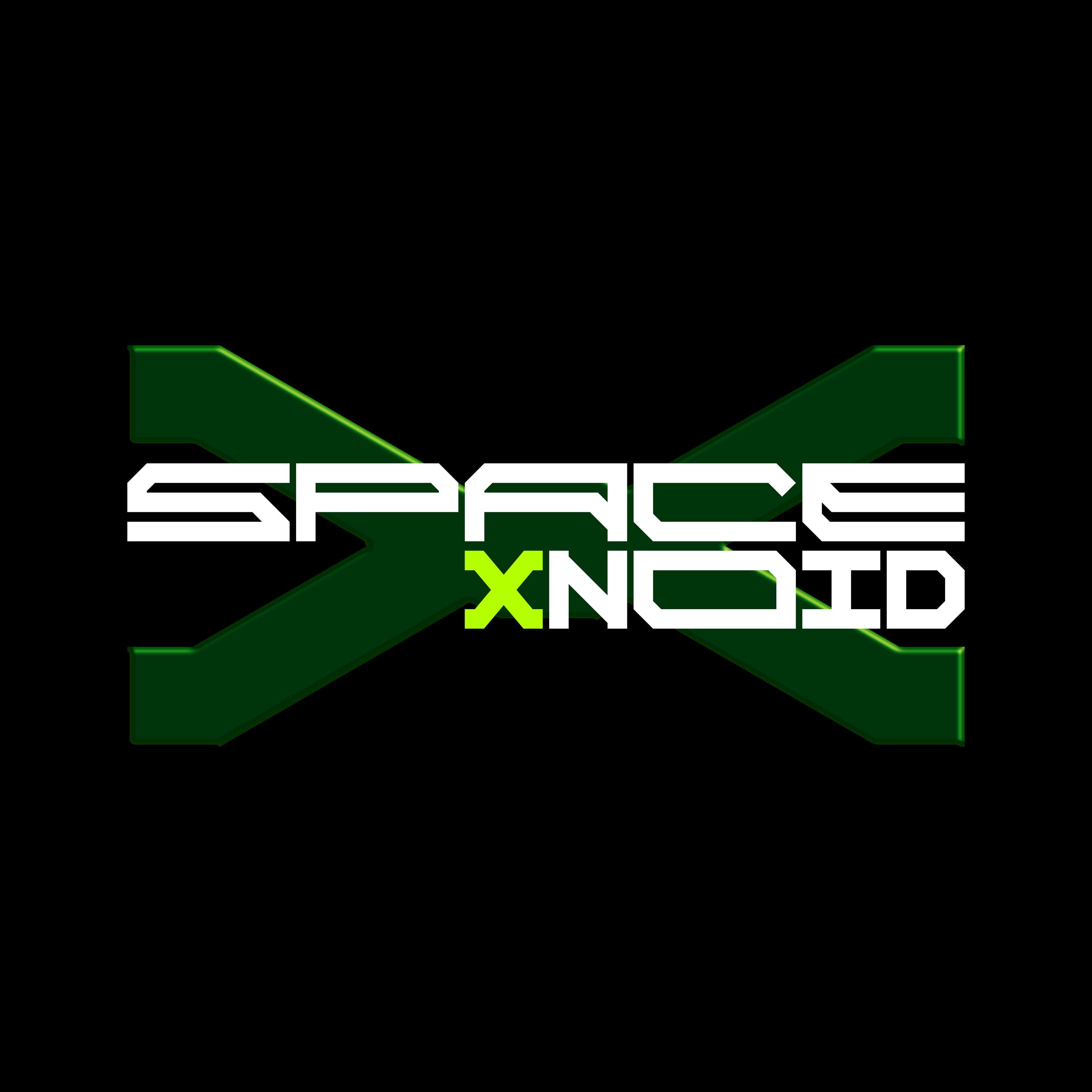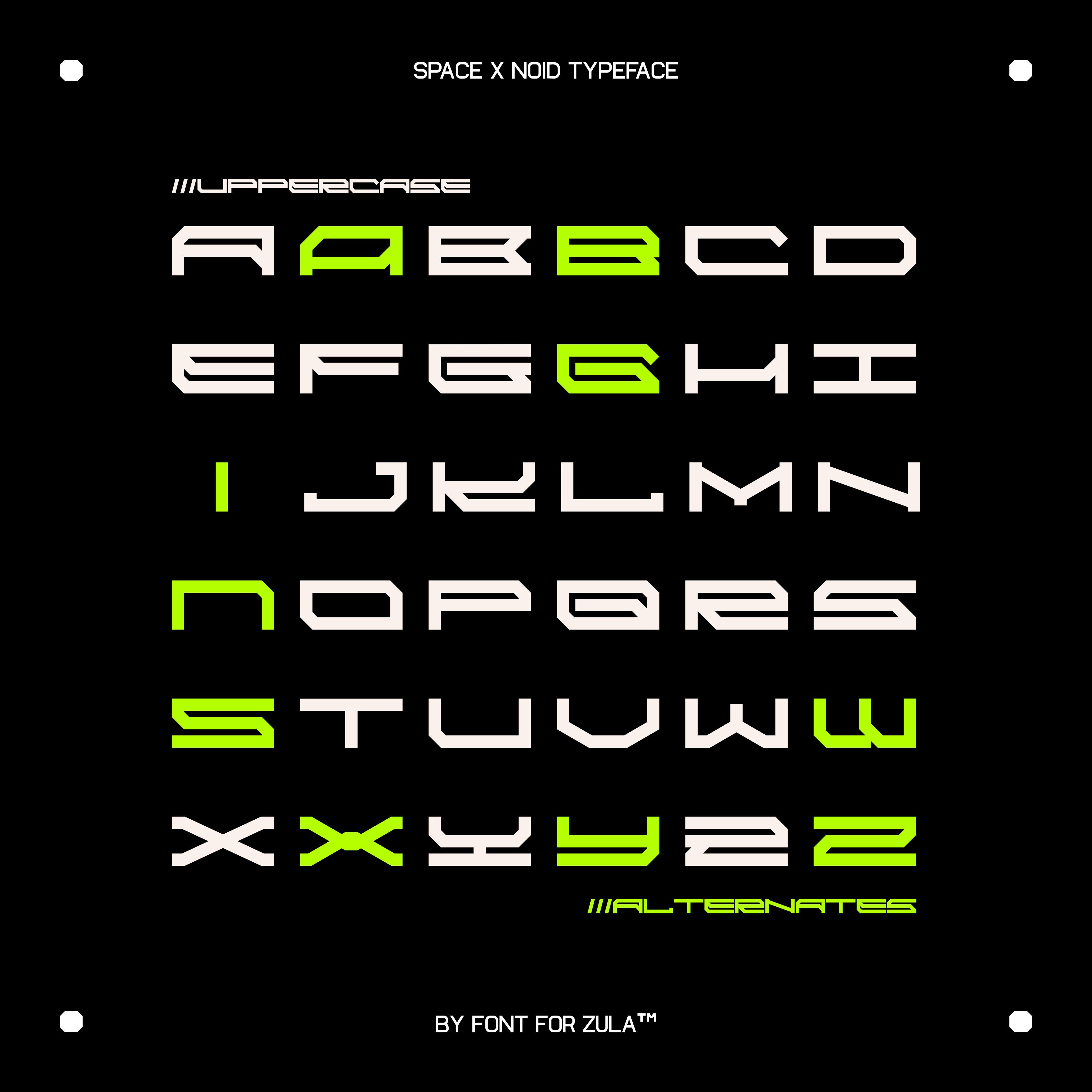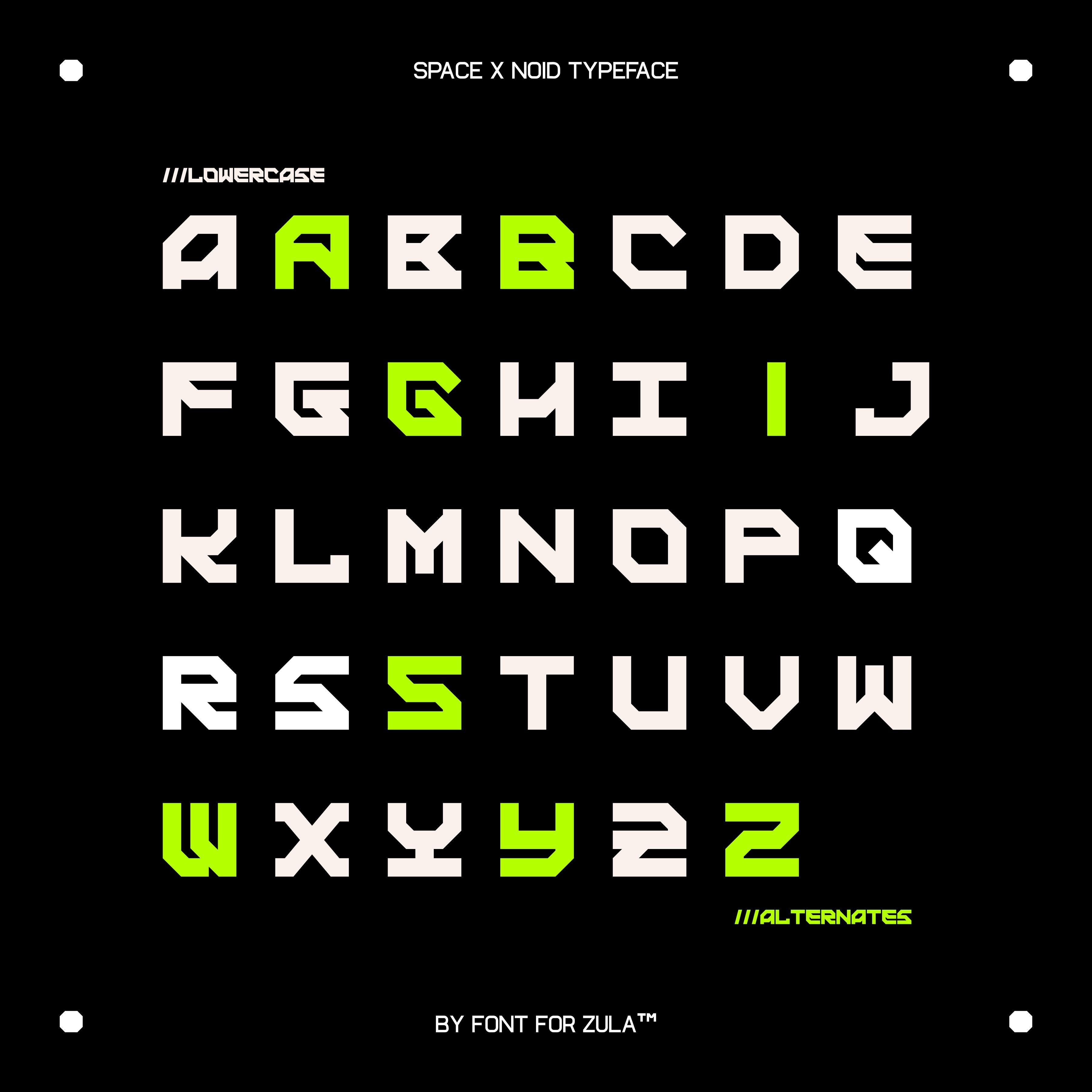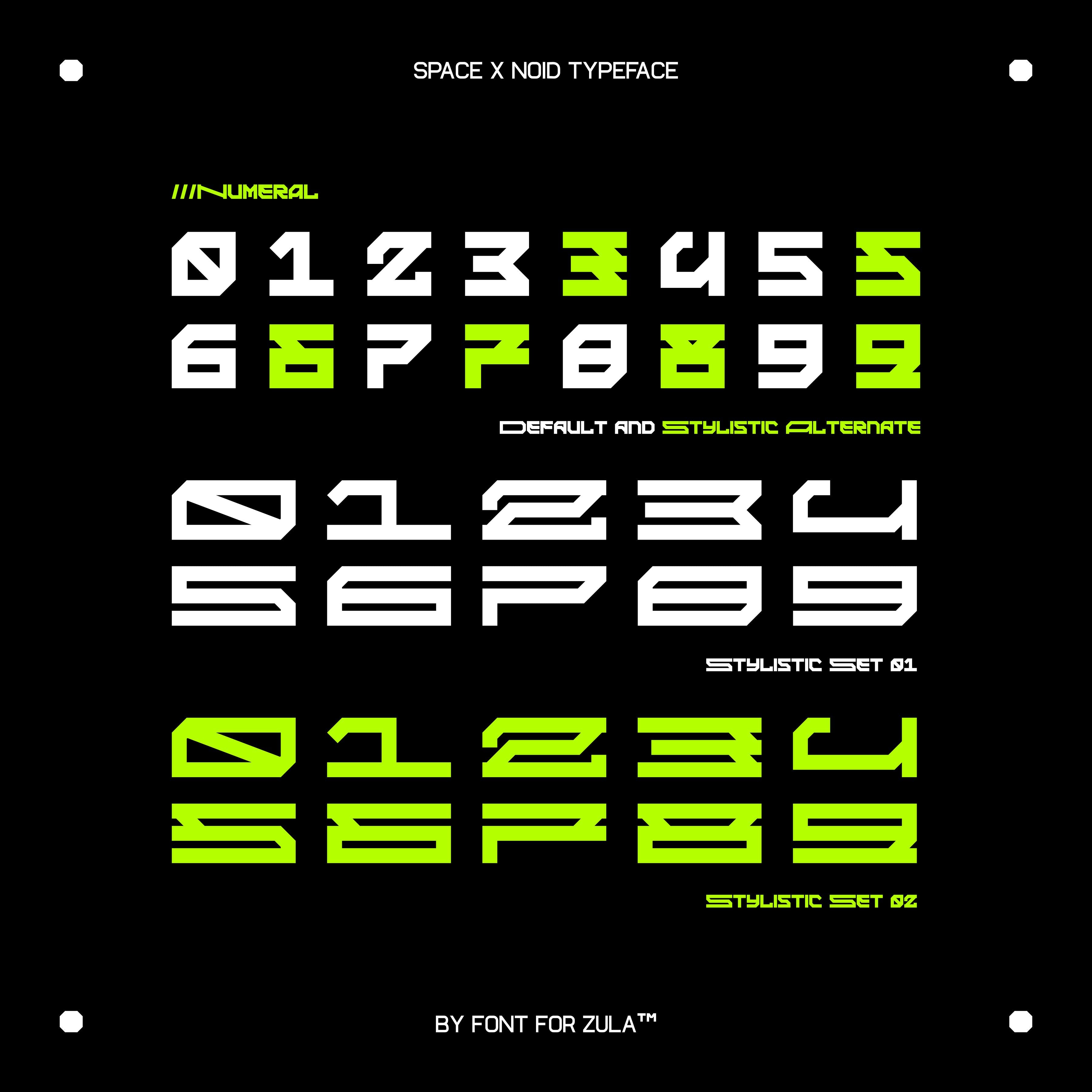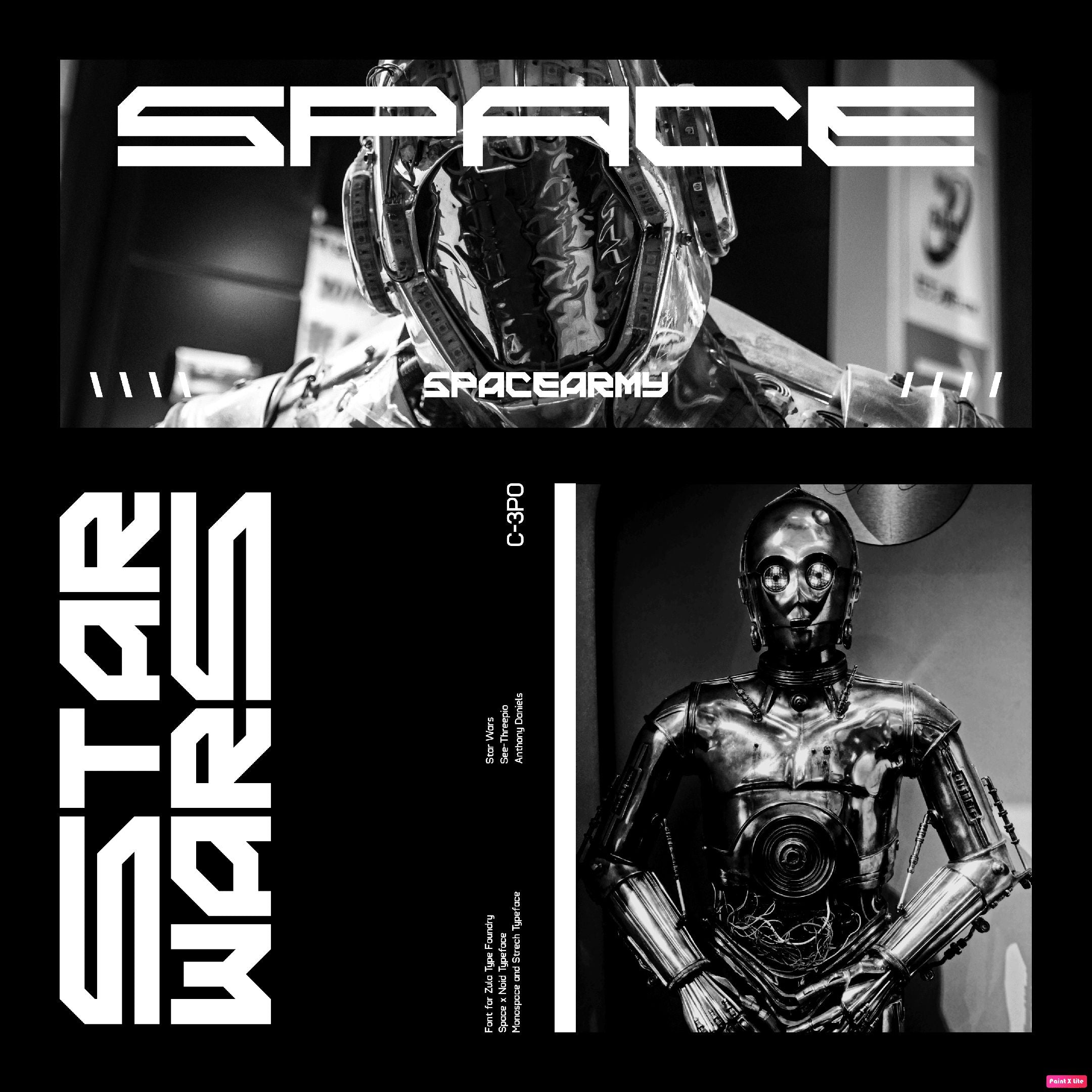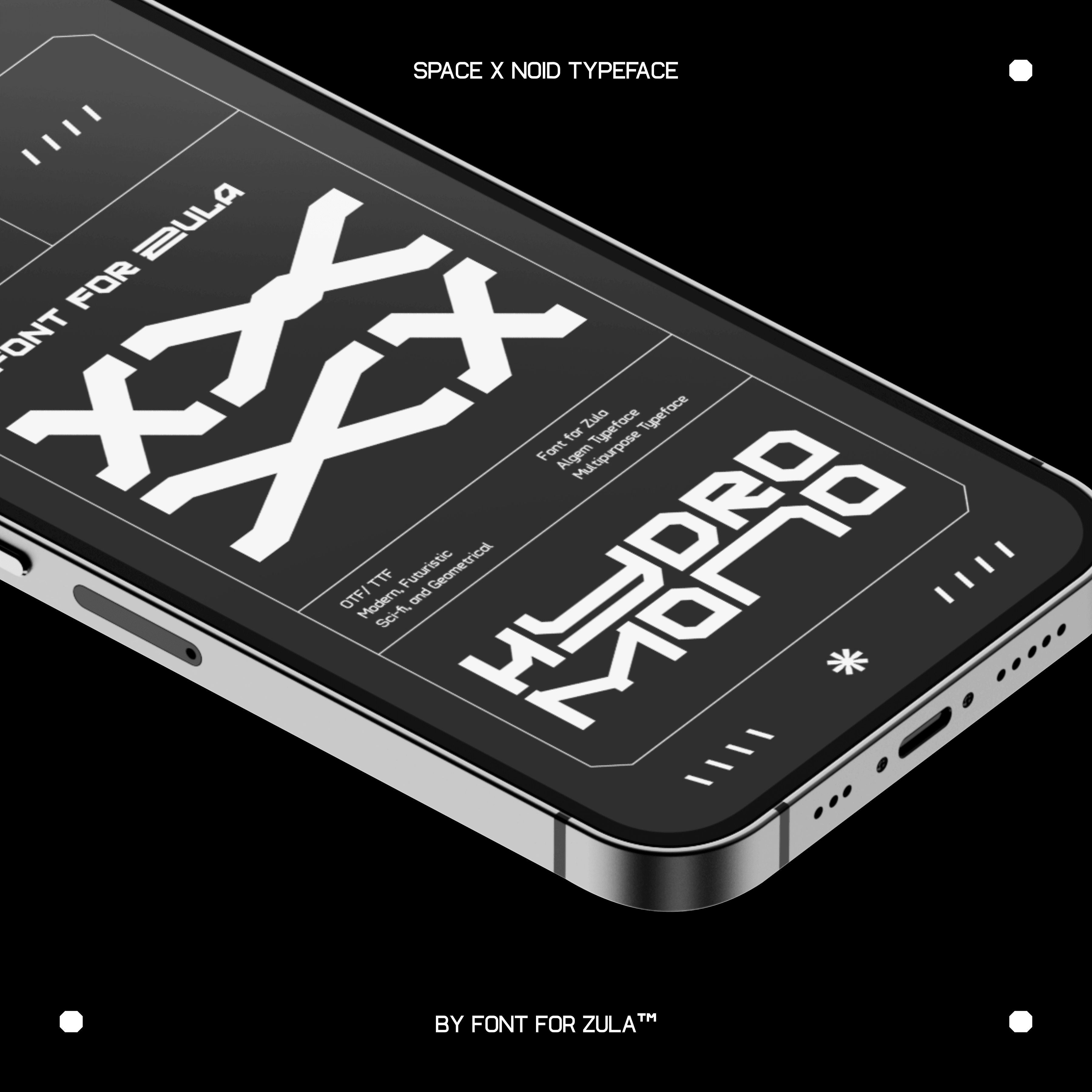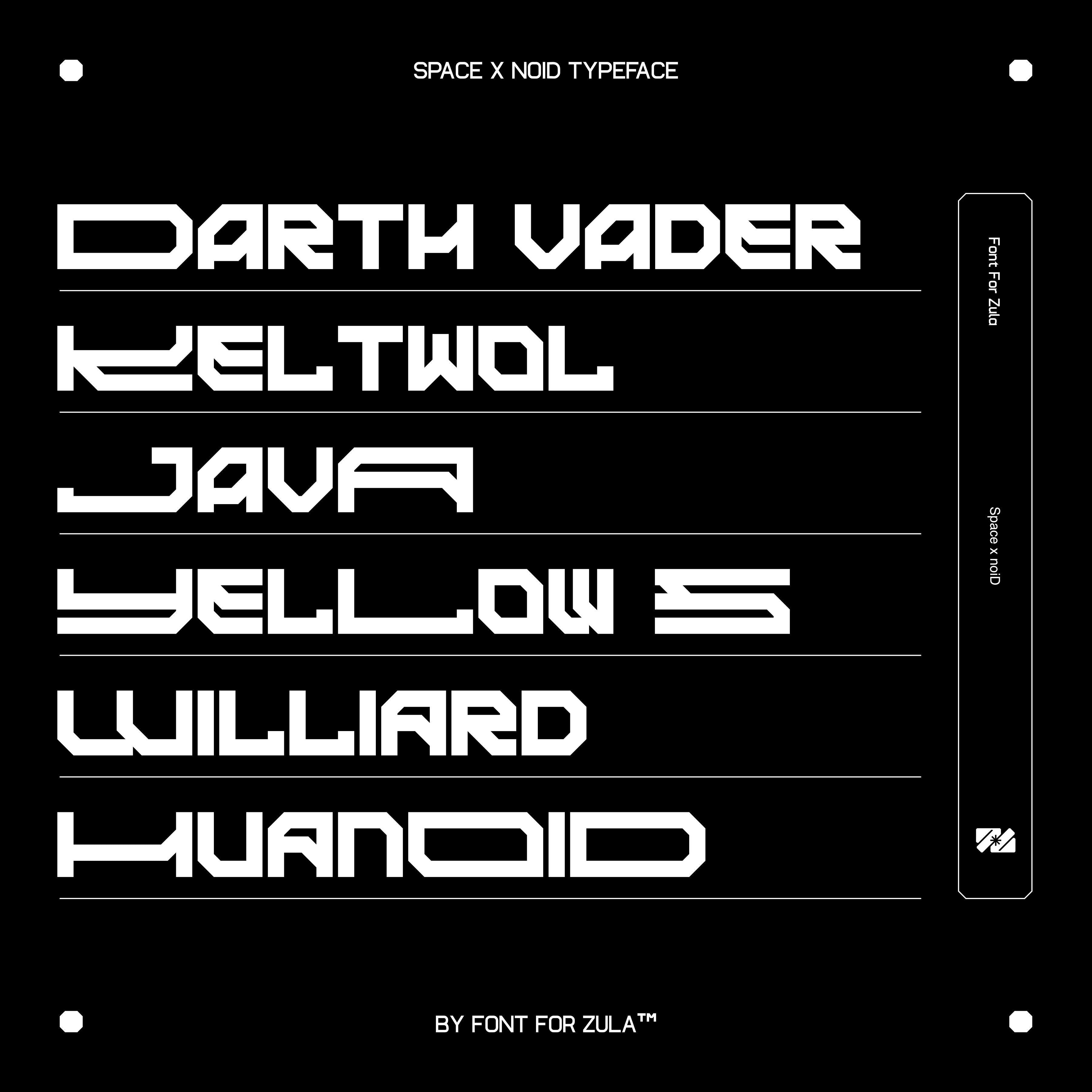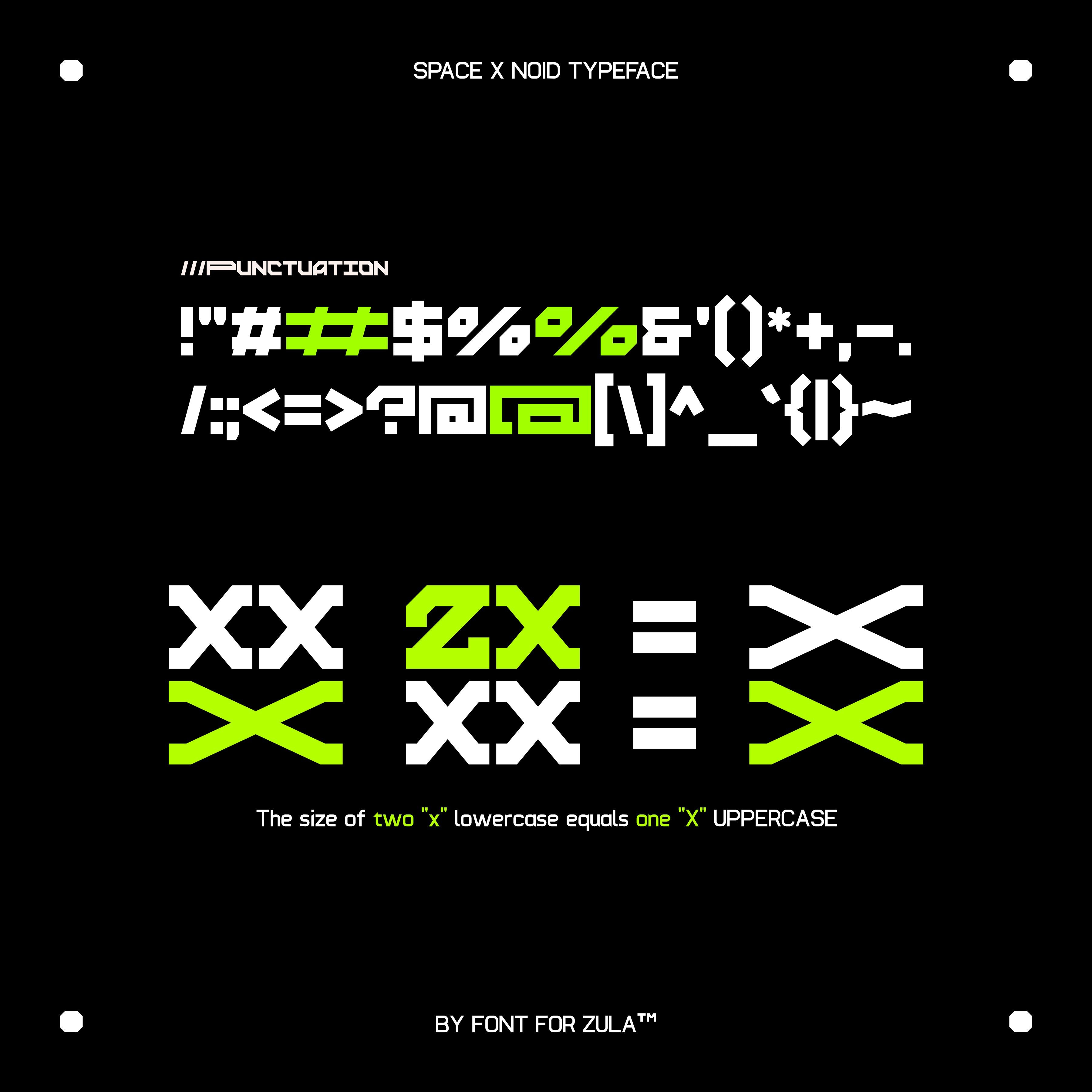
The Space X Noid Typeface is a modern, elegant typeface that offers easy combination of stretch and regular letters. It includes OTF/TTF, WOFF formats, a regular weight, 140 glyphs, and a variety of uppercase, lowercase, numbers, punctuation, and other alternates.
Ideal for modern and elegant graphic design projects. Perfect for branding, apparel, posters, and logos, ensuring versatility and a striking visual impact.